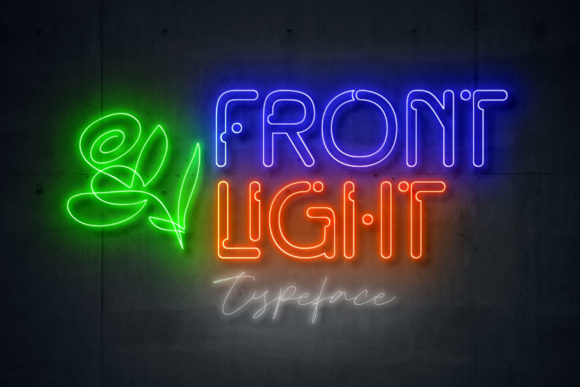
Introducing Front Light, the ultimate digital display font that transforms your ideas into captivating realities. With its modern and striking design, Front Light empowers you to create spectacular designs that leave a lasting impression.
At Front Light, we believe that fonts have the power to elevate your digital creations, adding a touch of sophistication and uniqueness. Our font is meticulously crafted to provide you with the perfect tool for expressing your creativity and capturing the attention of your audience.
Front Light shines in its versatility, effortlessly adapting to a wide range of digital projects. Whether you're designing logos, social media graphics, website headers, or any other digital content, Front Light seamlessly blends with your vision, adding a touch of elegance and professionalism. Its clean lines and distinctive character ensure that your designs stand out from the crowd.
Front Light is more than just a font; it's an experience that takes you on a journey of creativity and innovation. With its PUA encoding, you'll have effortless access to a treasure trove of glyphs and swashes, giving you the freedom to explore endless design possibilities. Unleash your imagination and let your designs soar to new heights with Front Light.